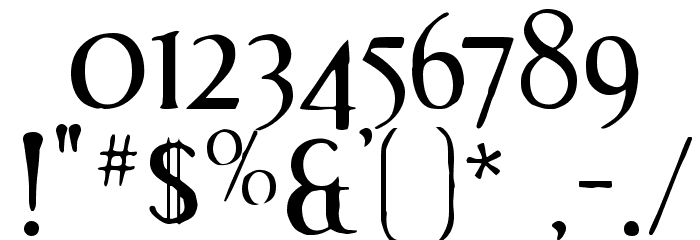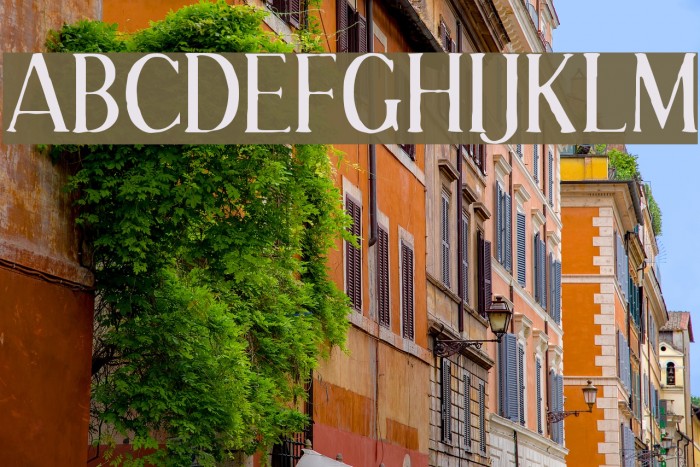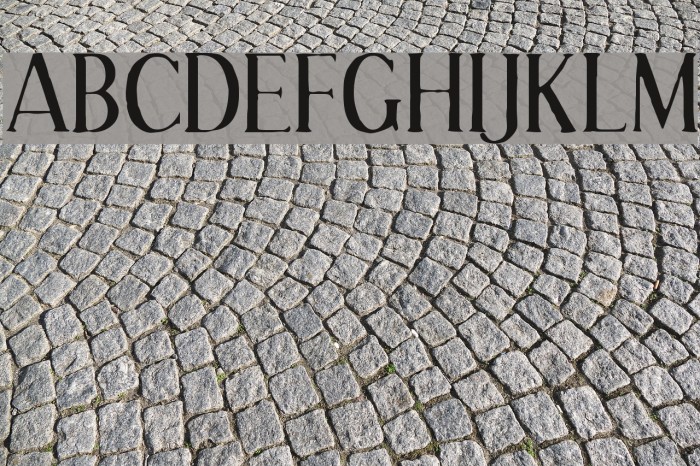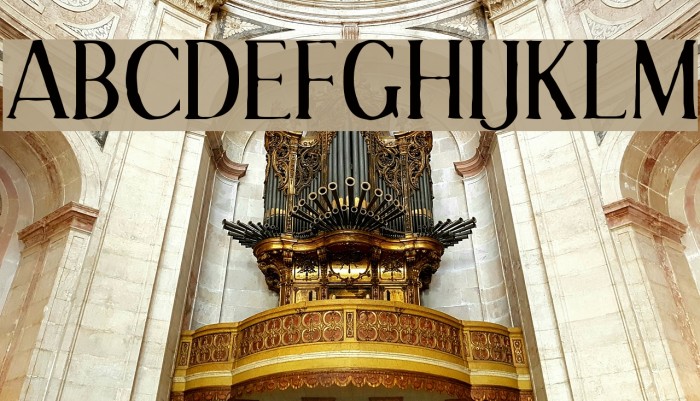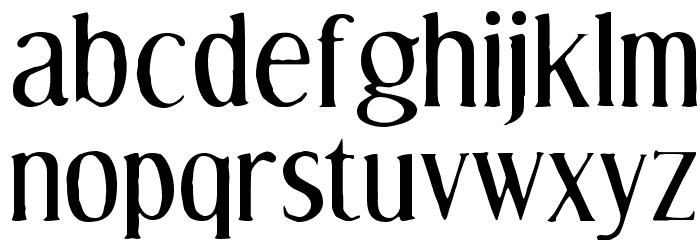
Effloresce Antique Font
This font exhibits a classic and elegant style with a touch of vintage charm. The uppercase letters are tall and slender, featuring subtle serifs that add a refined touch. The lowercase letters maintain a consistent flow, with rounded edges and a slightly condensed appearance. Numbers are well-proportioned, aligning seamlessly with the overall aesthetic. Special characters are thoughtfully designed, ensuring readability and harmony with the rest of the typeface. The font's unique character is enhanced by its medium contrast in stroke thickness, providing a balanced and sophisticated look.
A classic serif font with vintage elegance and medium contrast.